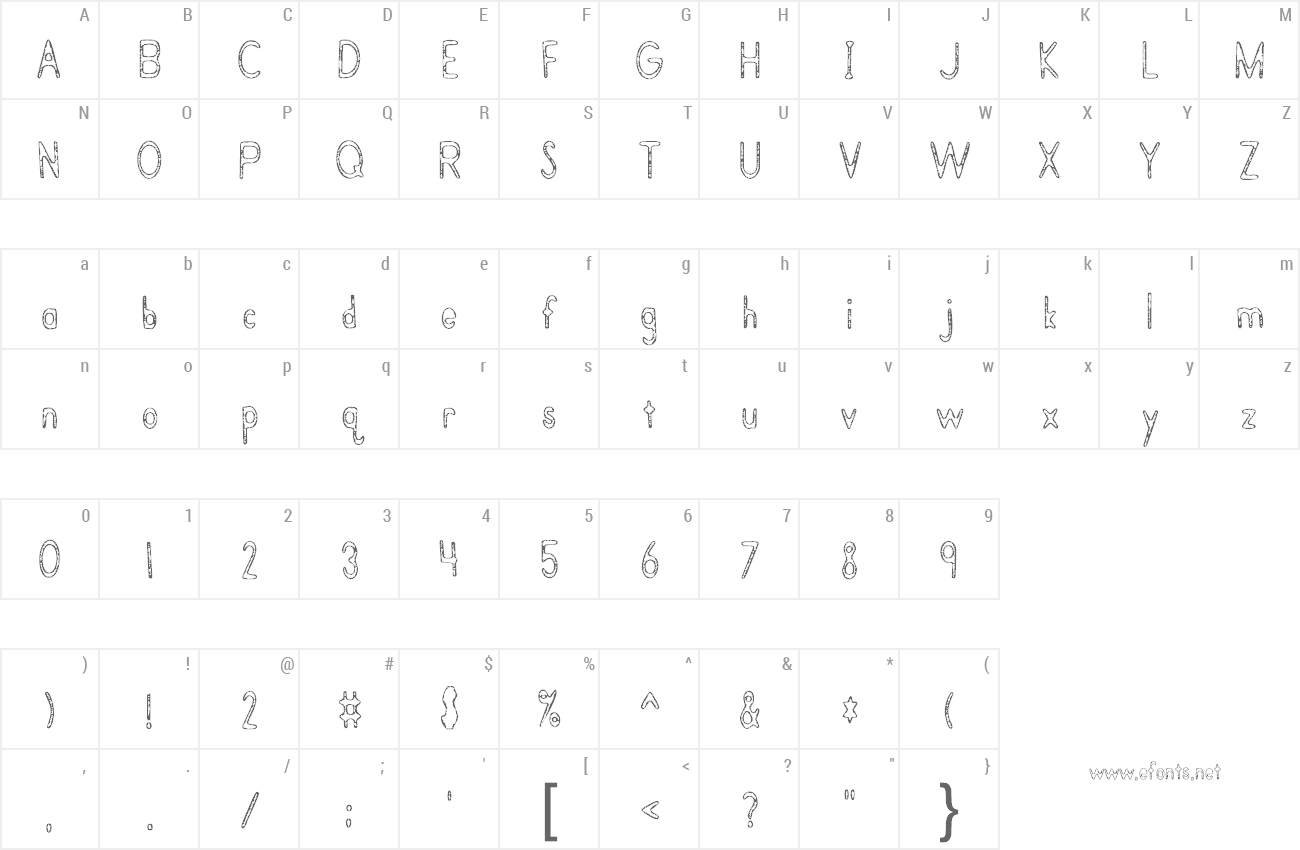
| Font name: | Bramalea Beauty |
| Bramalea Beauty is a degraded, distressed font of pure filth. This font includes a license that allows free commercial use: sometimes referred to as a desktop license. This allows you to install the font on a computer and use it to create posters, web graphics, game graphics, t-shirts, videos, signs, logos and more. Read the license agreement for details. |